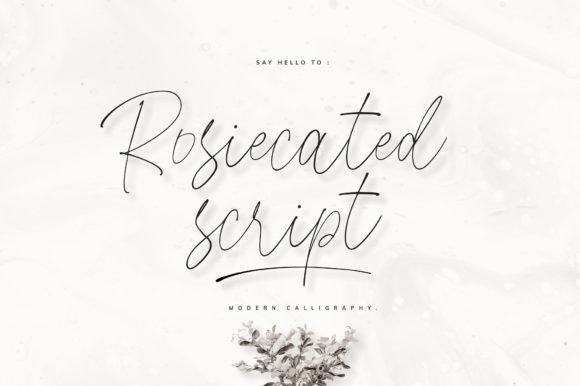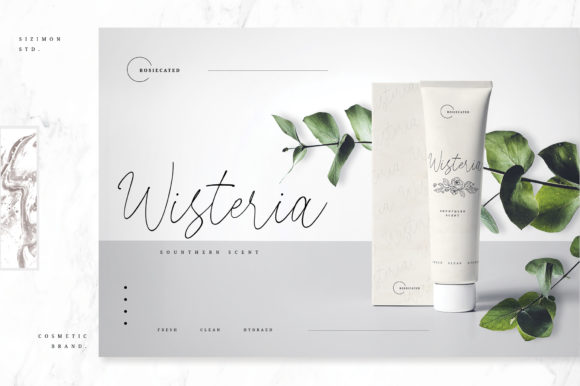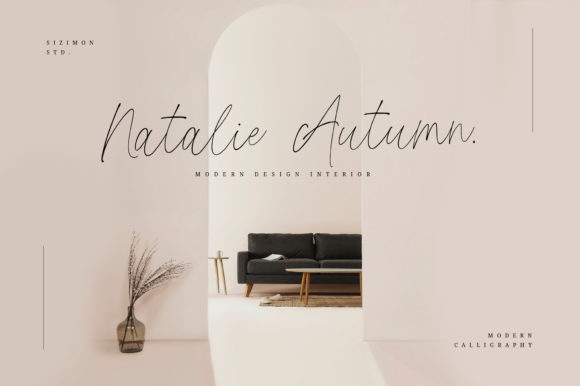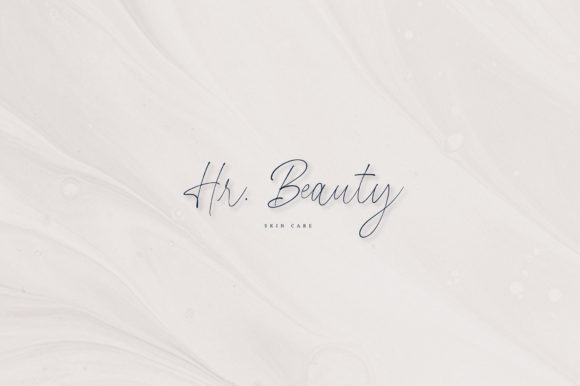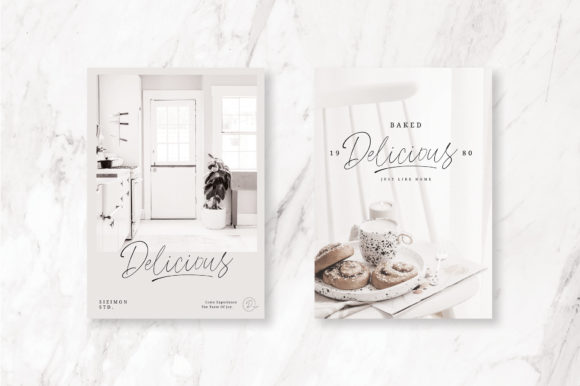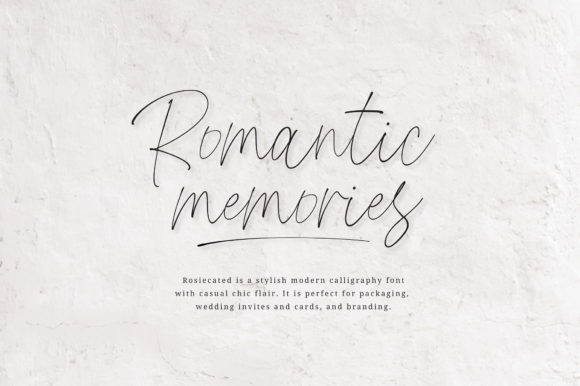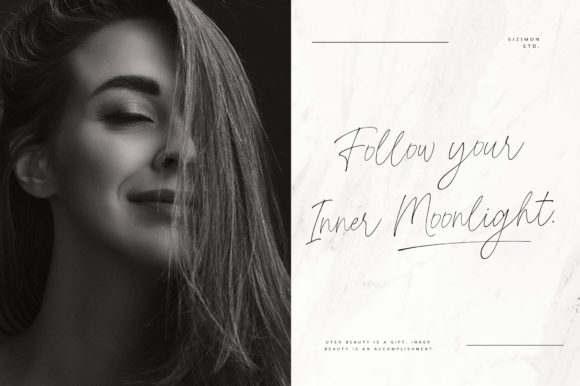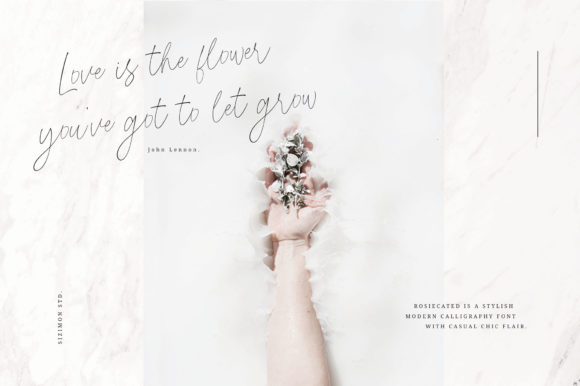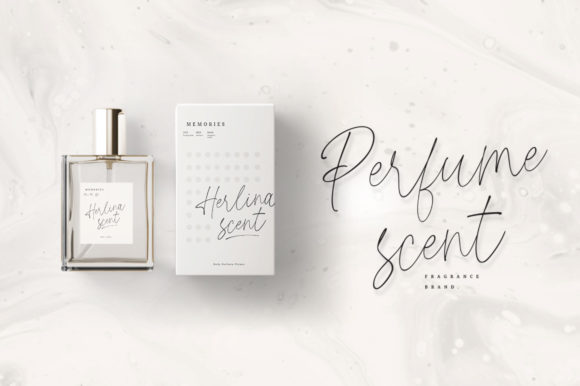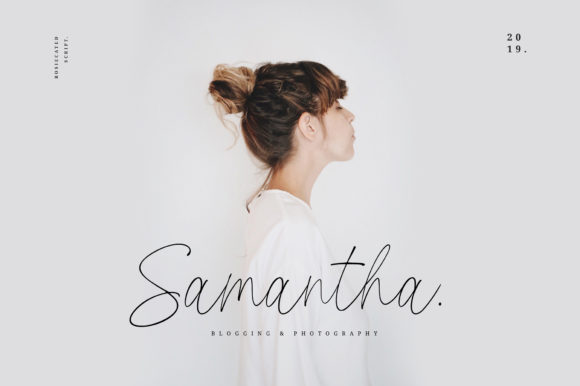
Rosiecated Script Font
About Rosiecated Script Font
Rosiecated Script is an elegant and timeless handwritten font. Fall in love with its incredibly distinct and timeless style and use it to create spectacular designs!